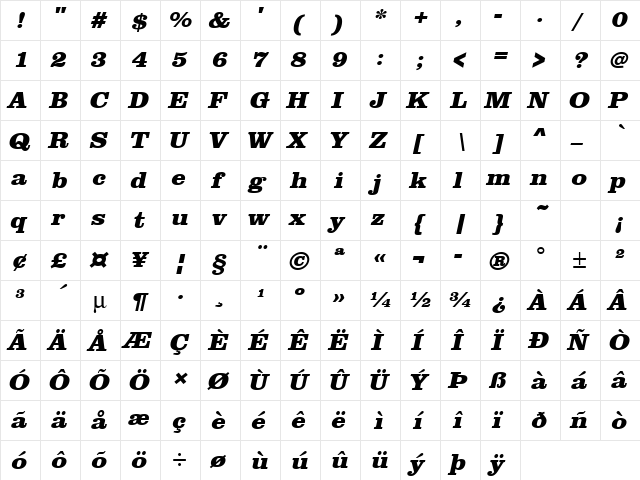
URWClarendonTExtBolWid Oblique
Design Context for URWClarendonTExtBolWid Typeface
URWClarendonTExtBolWid features prominent, blocky serifs that give it a confident, grounded presence — equally at home in editorial settings and bold branding work. The slanted form adds forward momentum and visual energy.
Suited to magazines, political campaign materials, bold packaging, and any setting where authority matters.
Pro Tip: Use URWClarendonTExtBolWid for headlines and subheadings where its slab serifs can make an impression. It also holds up well in mid-size body copy thanks to its sturdy construction.